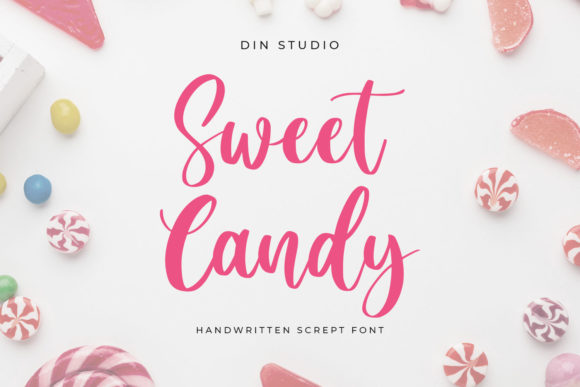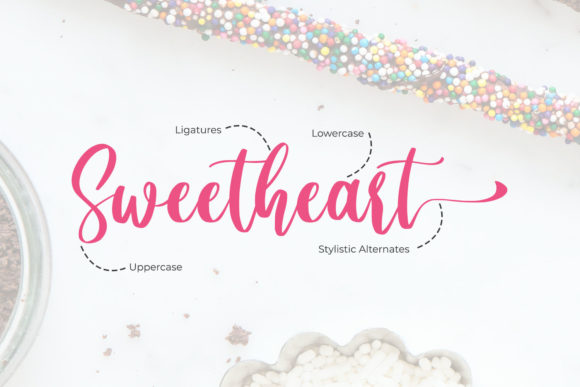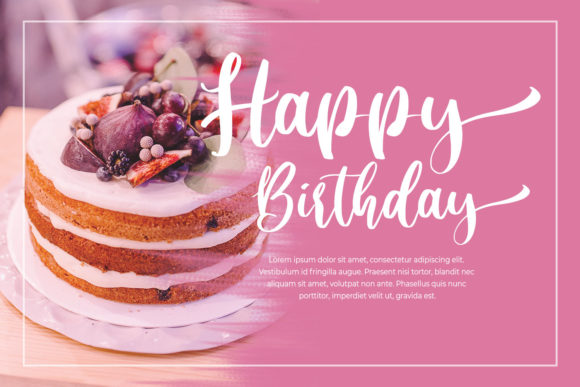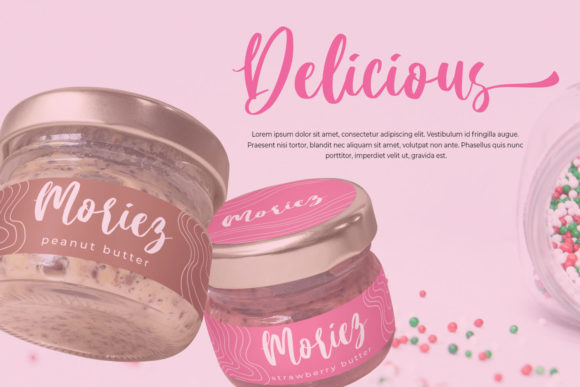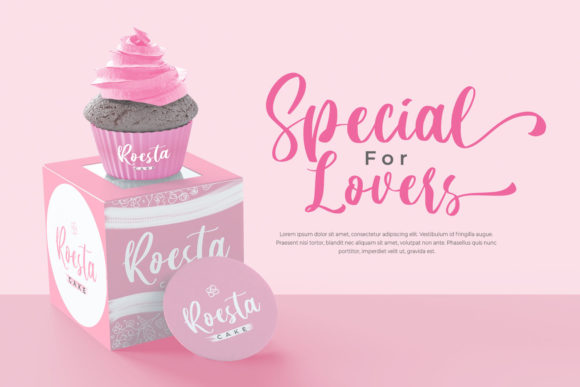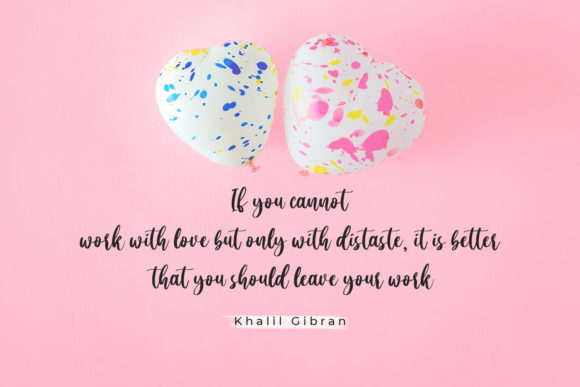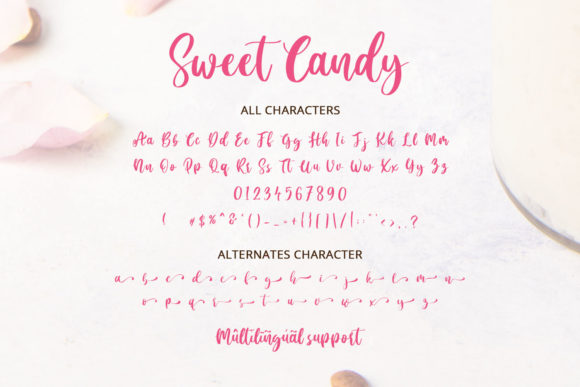
Sweet Candy Font
About Sweet Candy Font
Introducing “Sweet Candy,” a romantic and elegant handwritten font that will add a touch of sweetness and charm to all your designs. With its graceful and flowing strokes, this font exudes a sense of romance and sophistication, making it perfect for a wide range of projects. Let “Sweet Candy” be the icing on the cake for your wedding invitations, thank you cards, quotes, greeting cards, logos, business cards, and any other design that deserves a handwritten touch.
The captivating beauty of “Sweet Candy” lies in its romantic and whimsical appearance, creating a sense of warmth and tenderness that will surely melt hearts. Its elegant curves and smooth lines convey a sense of delicacy and grace, capturing the essence of love and sweetness in every letter.
Whether you’re designing a heartfelt love note or creating a dreamy wedding invitation, “Sweet Candy” will be your perfect companion, adding a touch of elegance and refinement to your work. This font’s versatility allows it to seamlessly blend with various design themes and styles, making it suitable for both formal and casual occasions.
With “Sweet Candy,” your creative possibilities are endless. Craft beautiful quotes, express heartfelt sentiments, or elevate your branding with a font that embodies the essence of romance and elegance.
In addition to its visual appeal, “Sweet Candy” is designed with practicality in mind. Its easy-to-access glyphs and swashes, courtesy of PUA encoding, enable you to effortlessly add intricate flourishes and embellishments to your designs, creating a truly personalized touch.
Let “Sweet Candy” inspire you to create captivating and dreamy designs that leave a lasting impression on your audience. Whether you’re a designer, a lover of beautiful typography, or someone celebrating a special occasion, this font invites you to create with love and create designs that are as sweet as candy.
So, indulge in the sweetness of “Sweet Candy” and bring your designs to life with a font that speaks the language of romance and elegance. It’s time to make your projects unforgettable with the enchanting touch of this beautiful handwritten font.